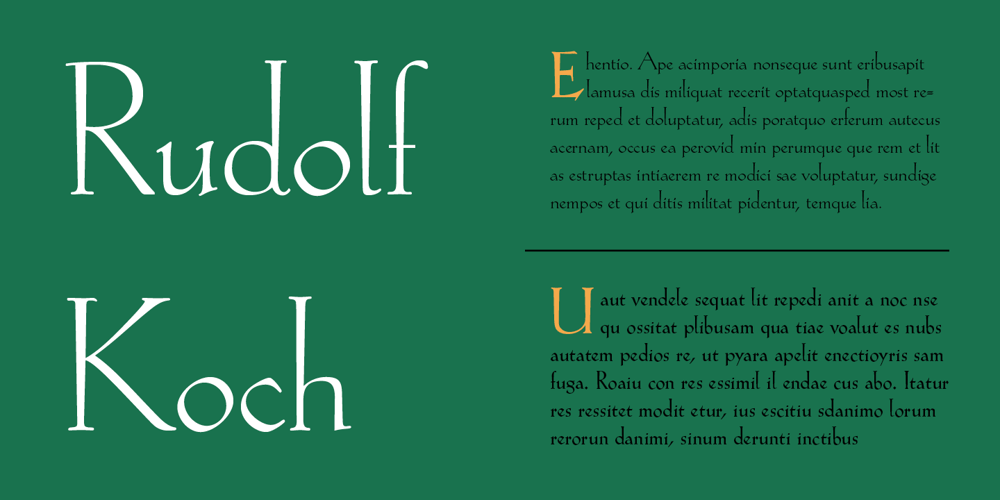
Kuenstler 165
Kuenstler 165 font
Kuenstler 165 Font Family was designed by Isabella Chaeva and published by ParaType. Kuenstler 165 contains 2 styles and family package options. Bitstream typeface based on Koch Antiqua by Rudolph Koch (Klingspor, 1922). Koch Antiqua, also known as Locarno and Eve, is the most popular face of one of the great lettering artists of the 20th century. This delicate display face has a small x-height, very tall ascenders, and main strokes that taper gracefully downward. Koch-Antiqua appeared extensively in advertising between the wars. A refined letterform, it is best used sparingly for a distinctive look in advertising, book, and job work. Two weights of Cyrillic version including alternative lc characters were developed by Isabella Chaeva and released in 2008 by ParaType.